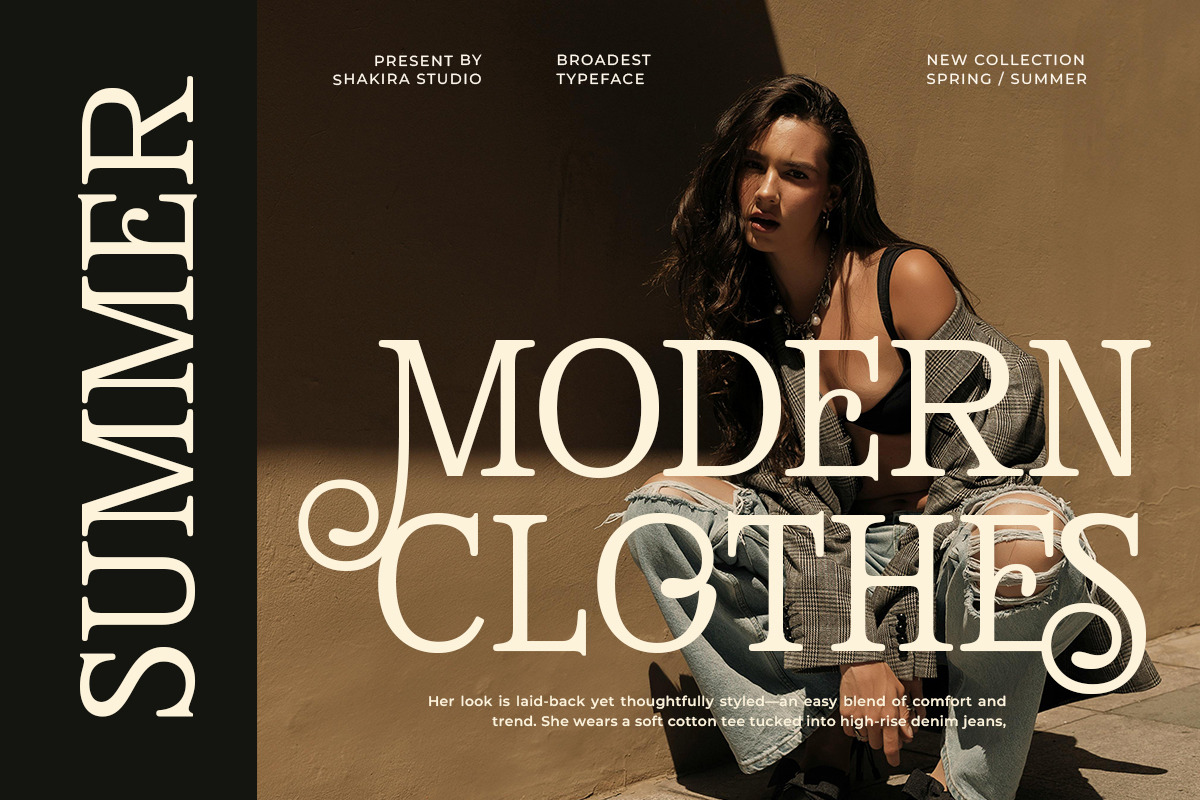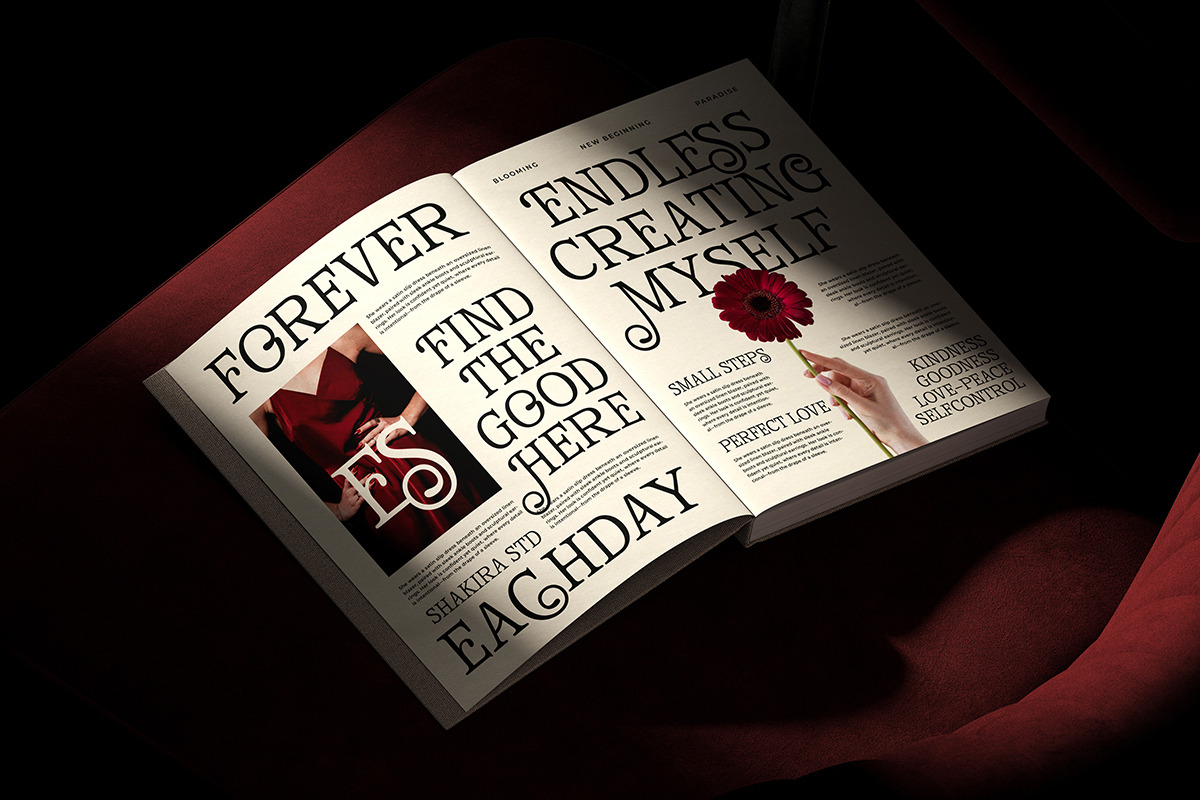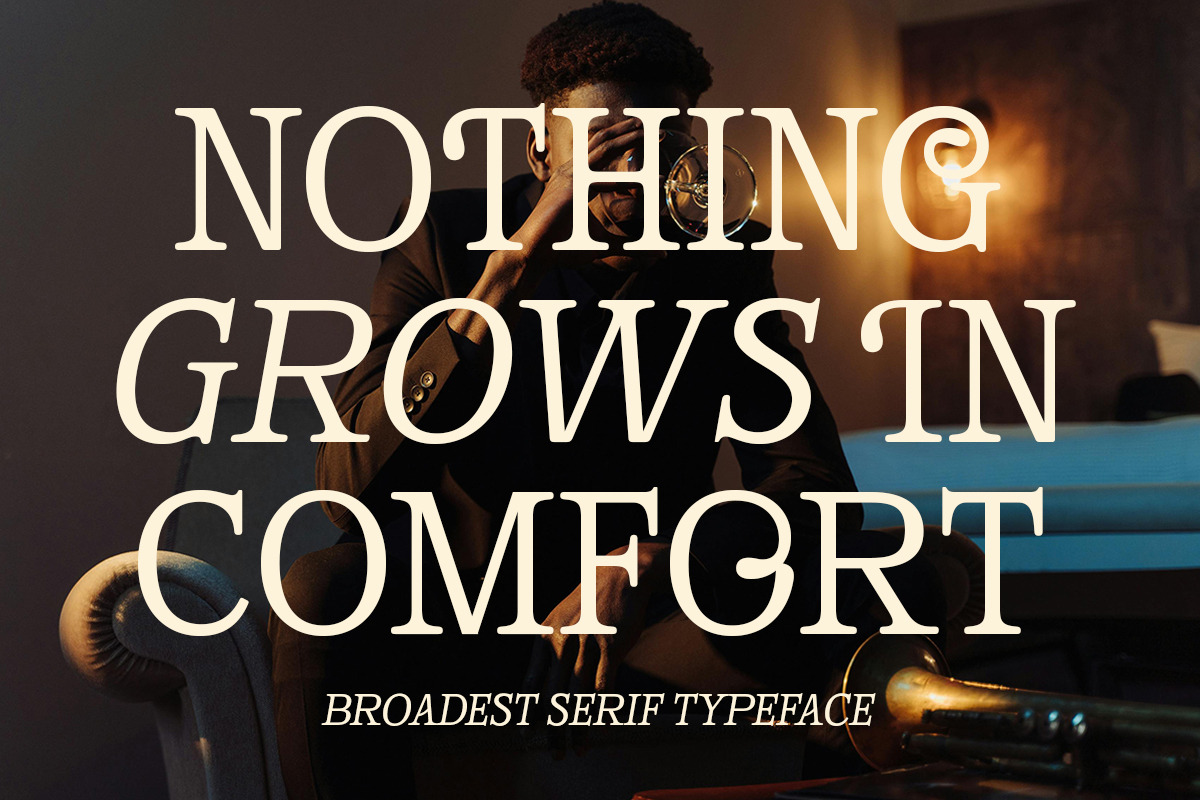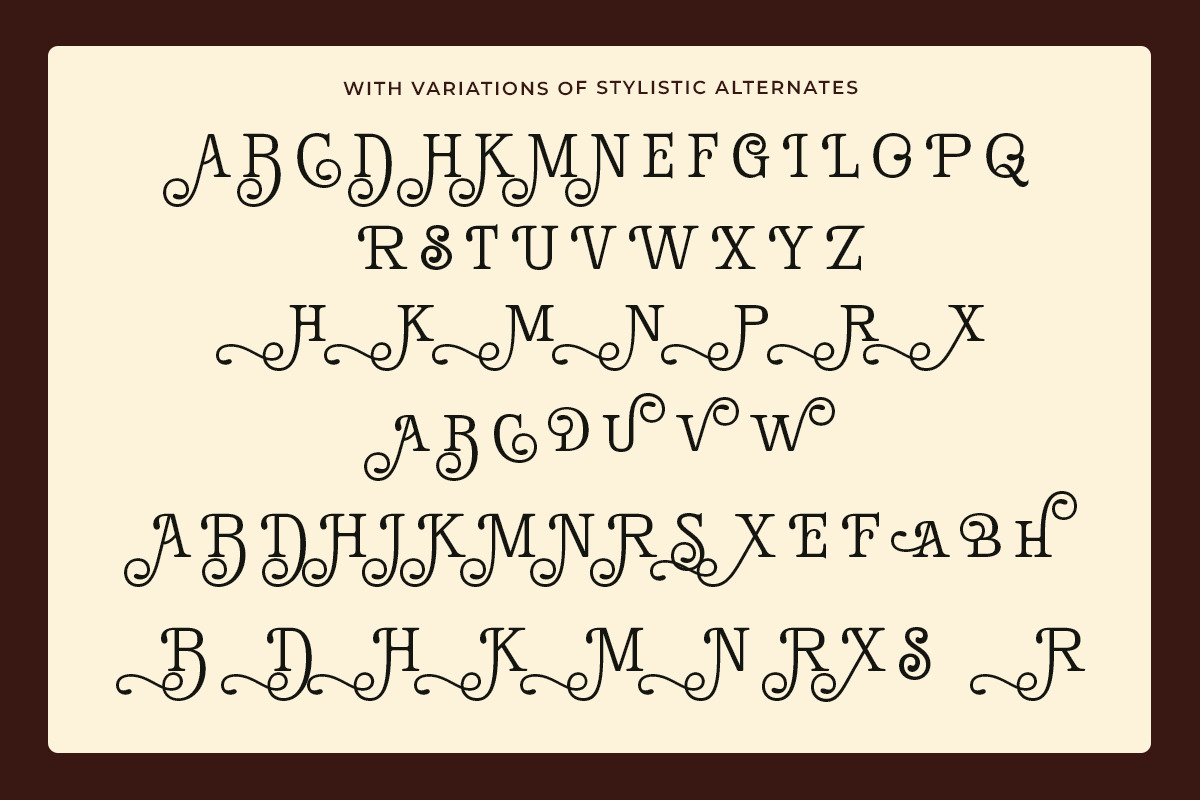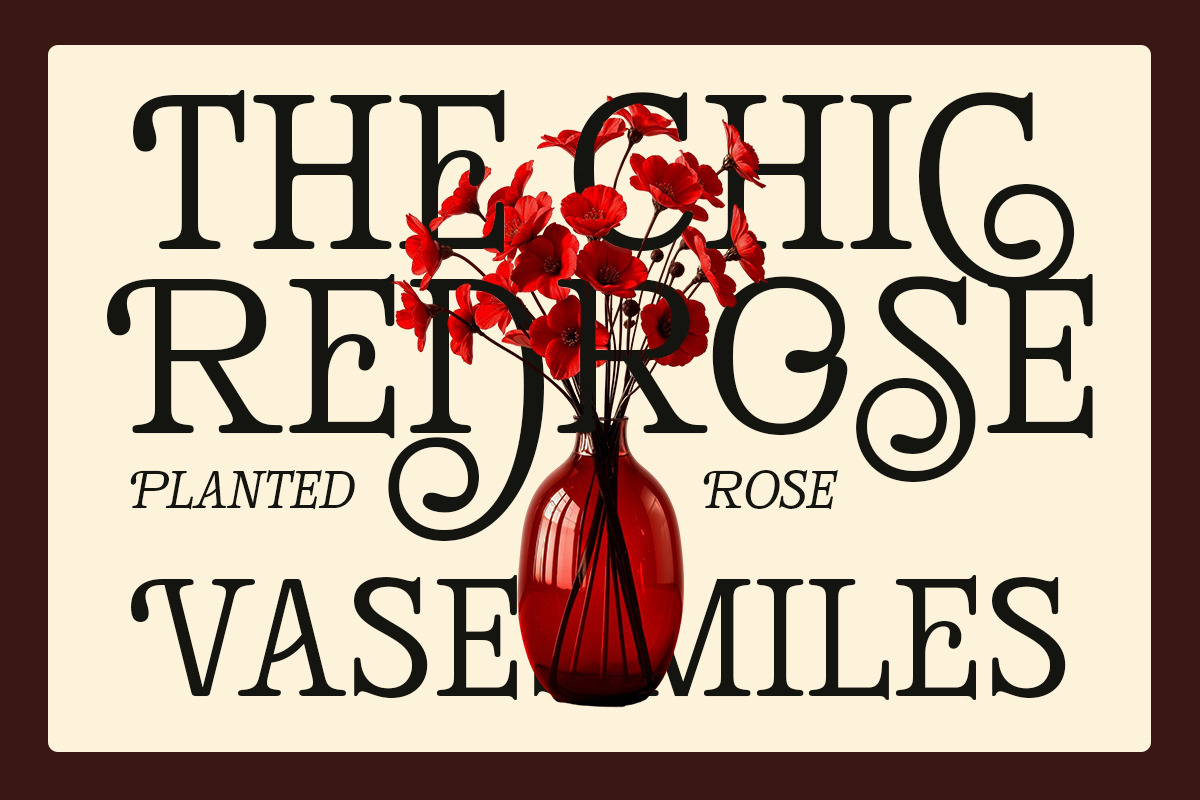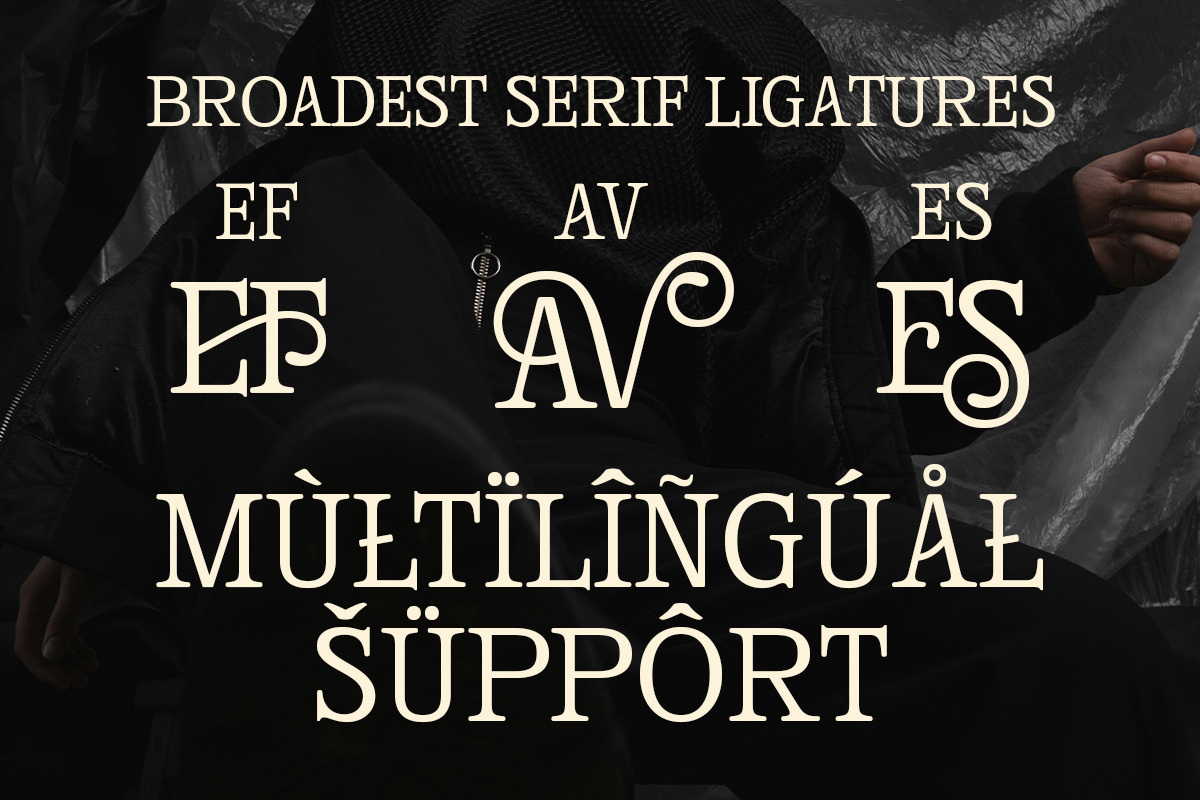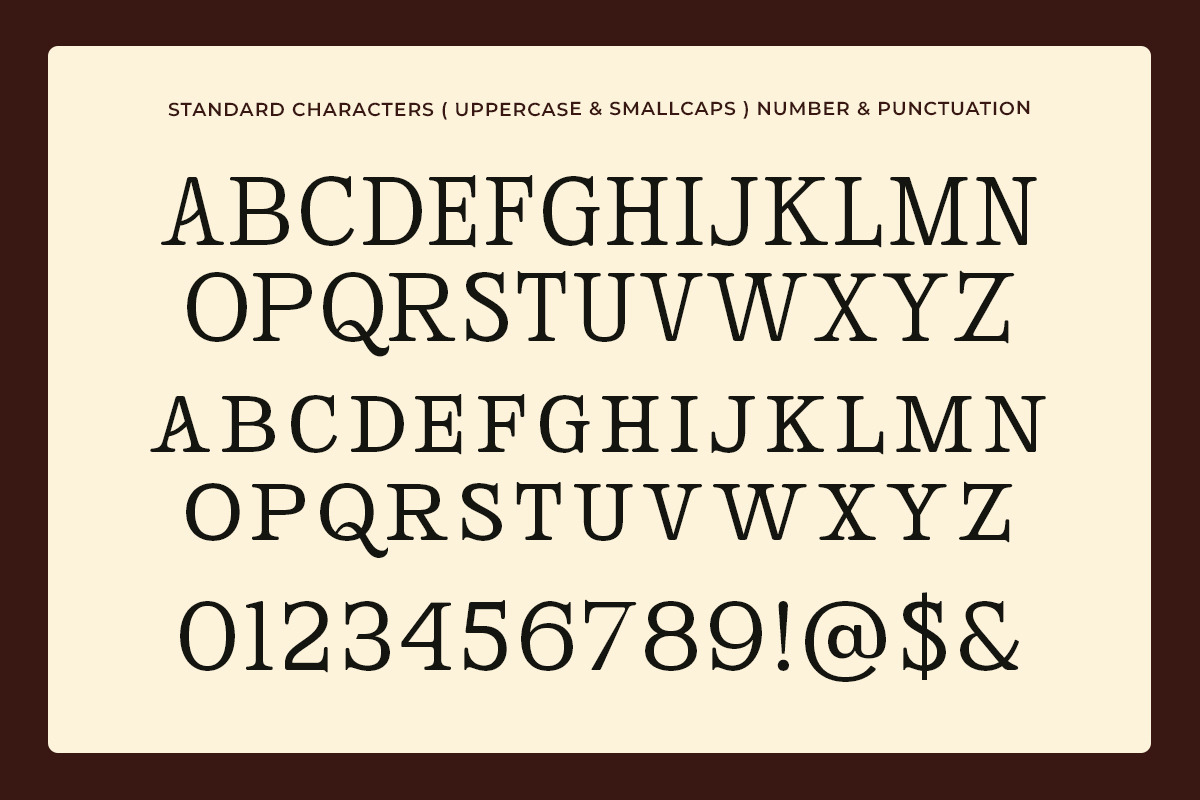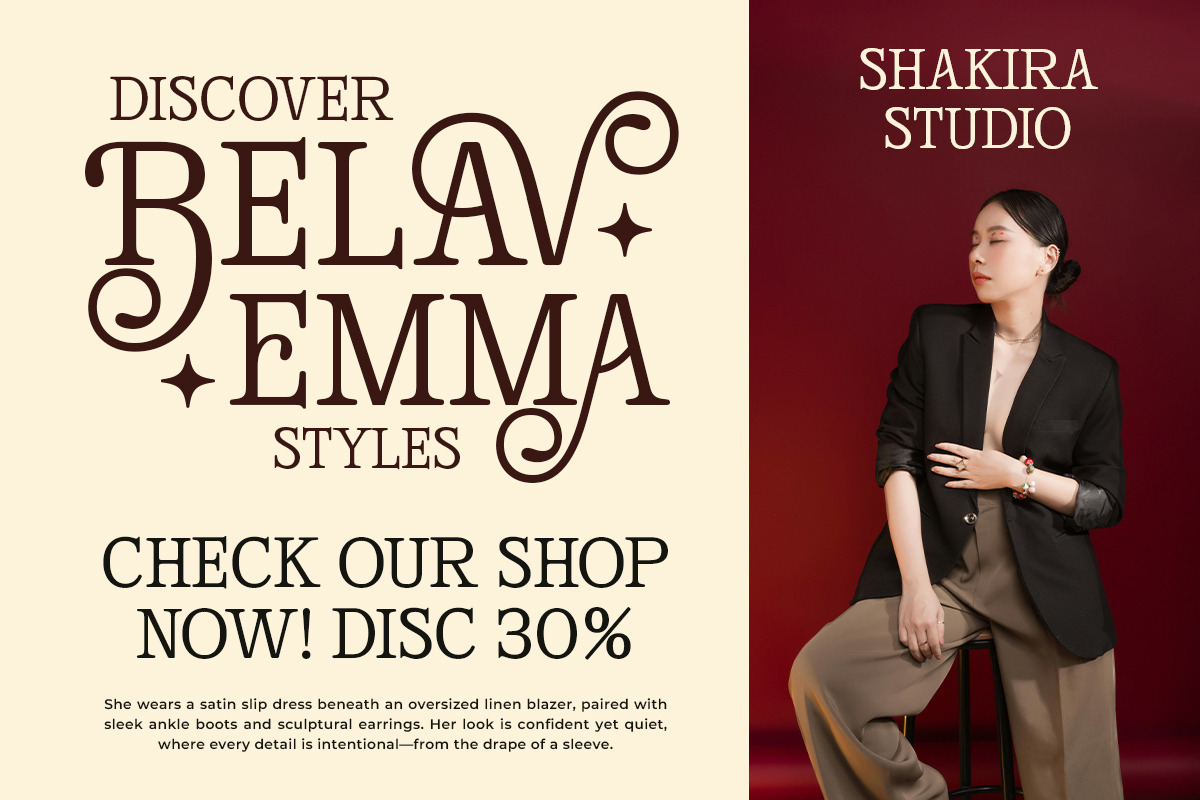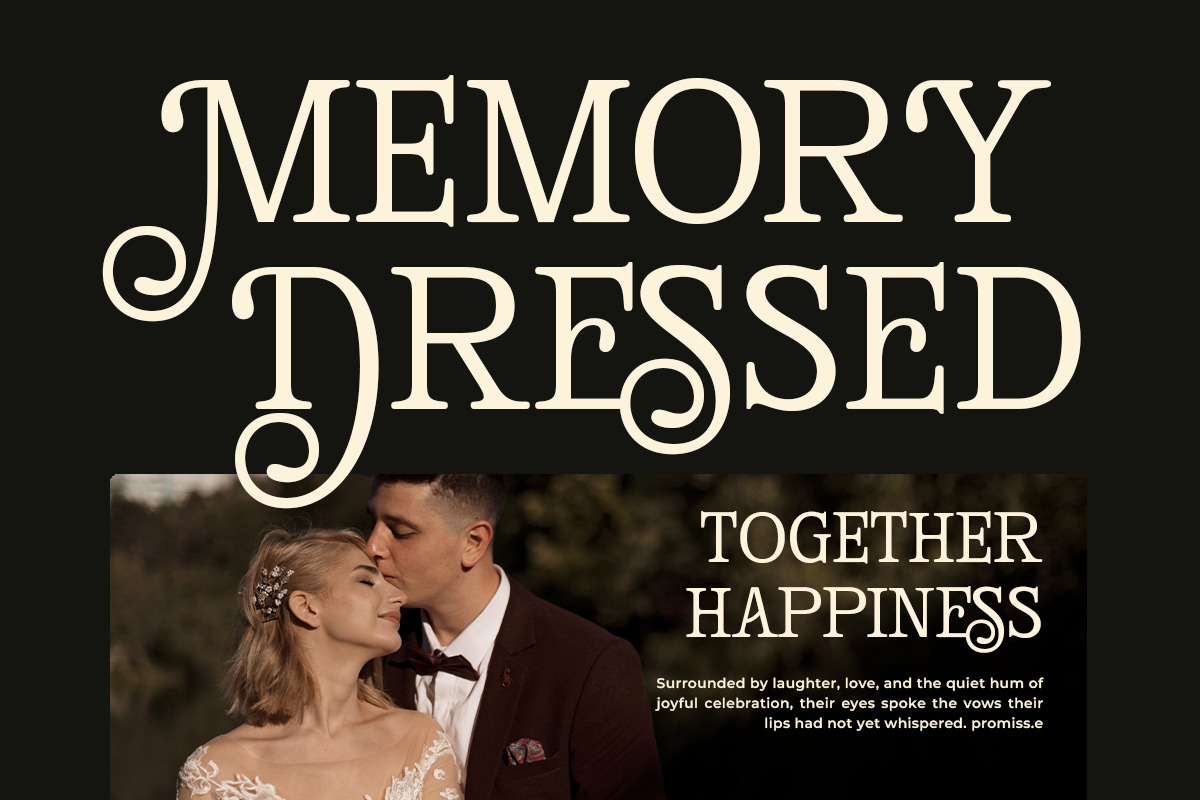
Broadest - Swash Decorative Serif
Broadest is a bold decorative swash serif font with timeless charm and unique character.
Designed to blend classic vintage details with modern readability, Broadest works beautifully for display purposes such as posters, logotypes, packaging, and branding that demand strong presence. With swashes, alternates, and ligatures, it brings a versatile style perfect for retro elegance and modern aesthetics alike.
- Decorative swash serif typeface
- Alternates & stylish ligatures
- 2 styles: Regular & Italic
- Posters & advertising headlines
- Retro & vintage branding
- Elegant packaging design
- Apparel & merchandise
- Logo design with swashes
- Editorial layouts & magazine titles
A decorative serif that merges boldness with elegance, ready to elevate your visual identity.